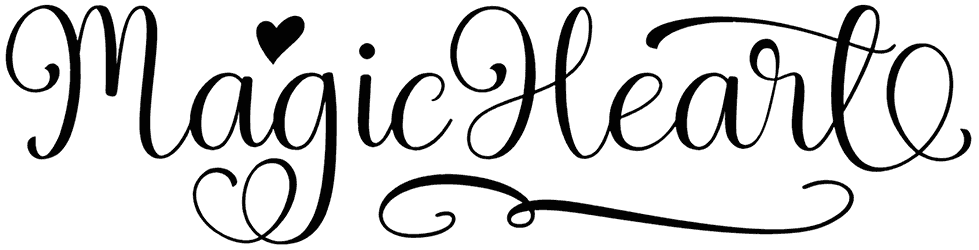
Magic Heart Font
Magic Heart belongs to categories like script and calligraphy font. This stylish writing doesn’t support the numbers. This Valentin font is used for decorative purposes and makes your ideas distinguishable. The mood of this font is formal and feminine. Magic Heart has various uses, like hand-lettering, branding, calligraphy, etc. This gorgeous style helps you get more creative.